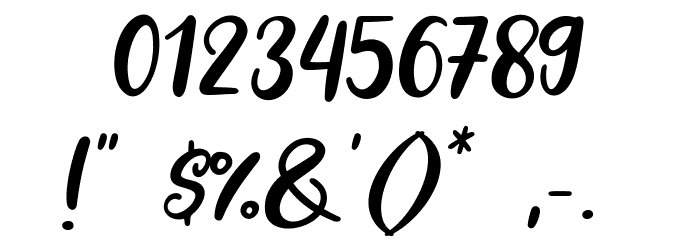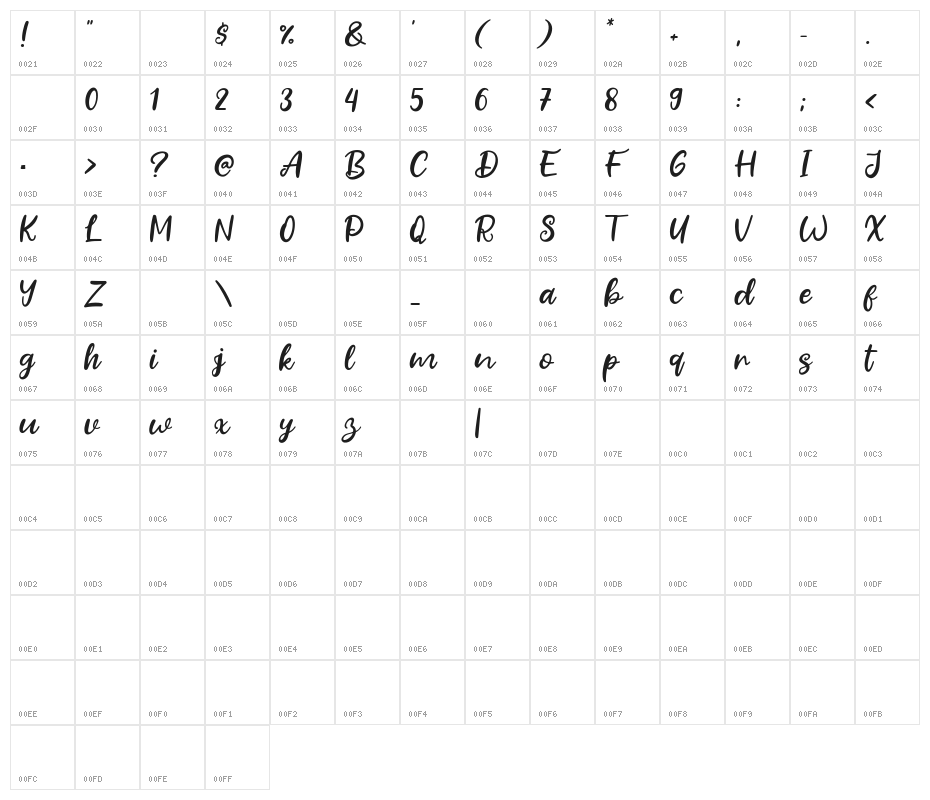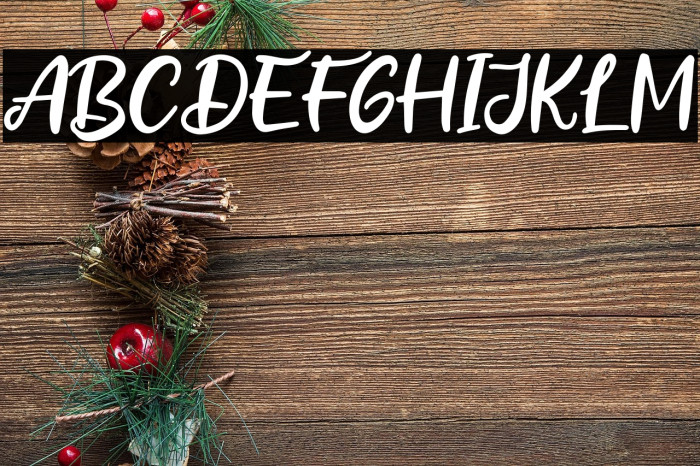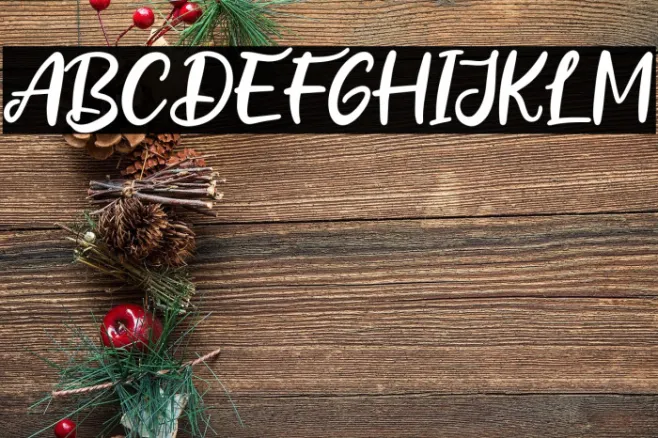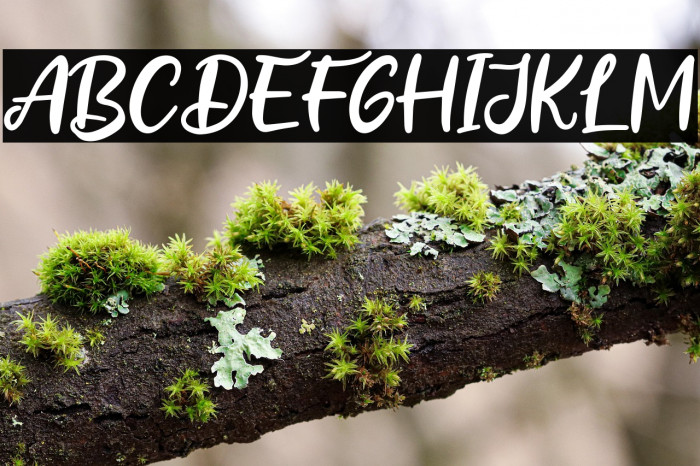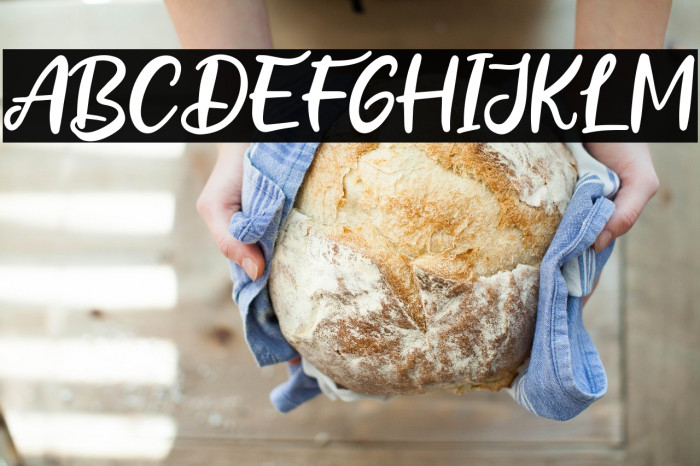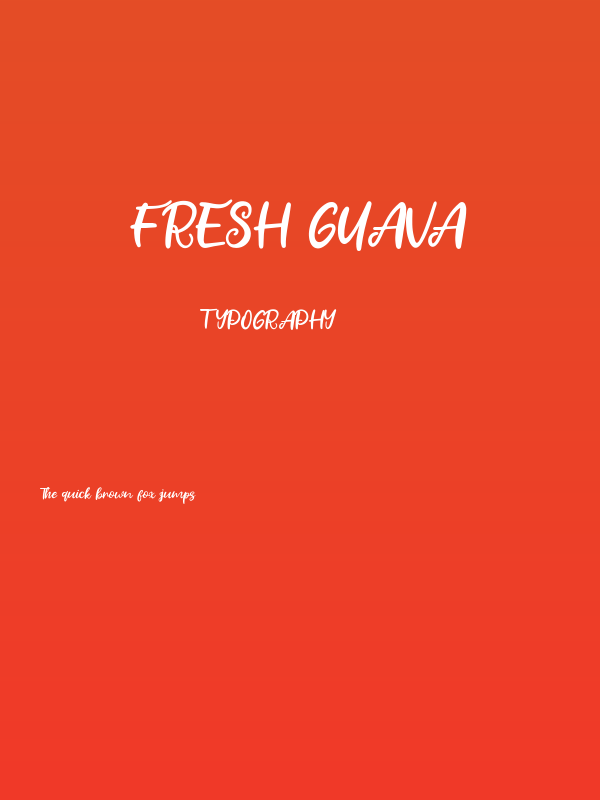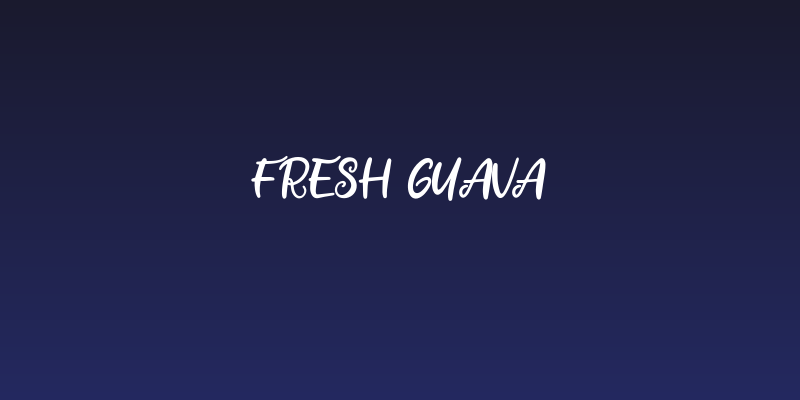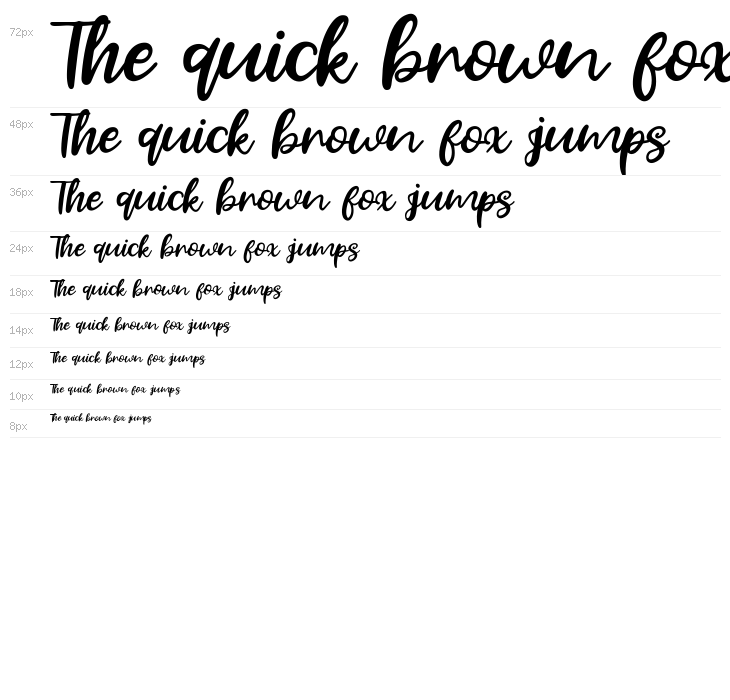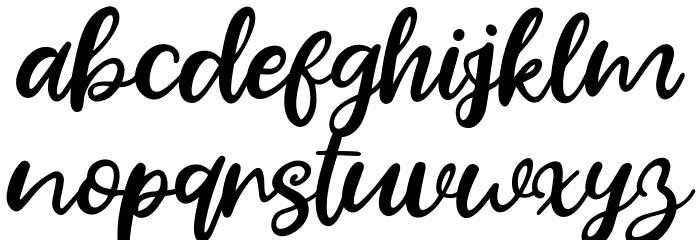
Fresh Guava Font
Fresh Guava Description
This font features a lively and flowing script style, characterized by its smooth, connected strokes and elegant curves. The uppercase letters exhibit a bold presence with a slight slant, while the lowercase letters maintain a consistent flow, enhancing readability. The numerals are distinct and well-proportioned, complementing the overall aesthetic. Special characters are thoughtfully designed, maintaining the font's cohesive style. This font exudes a sense of playfulness and sophistication, making it suitable for various creative applications.
| Proposed Projects | Ideal for wedding invitations, greeting cards, branding projects, and social media graphics. |